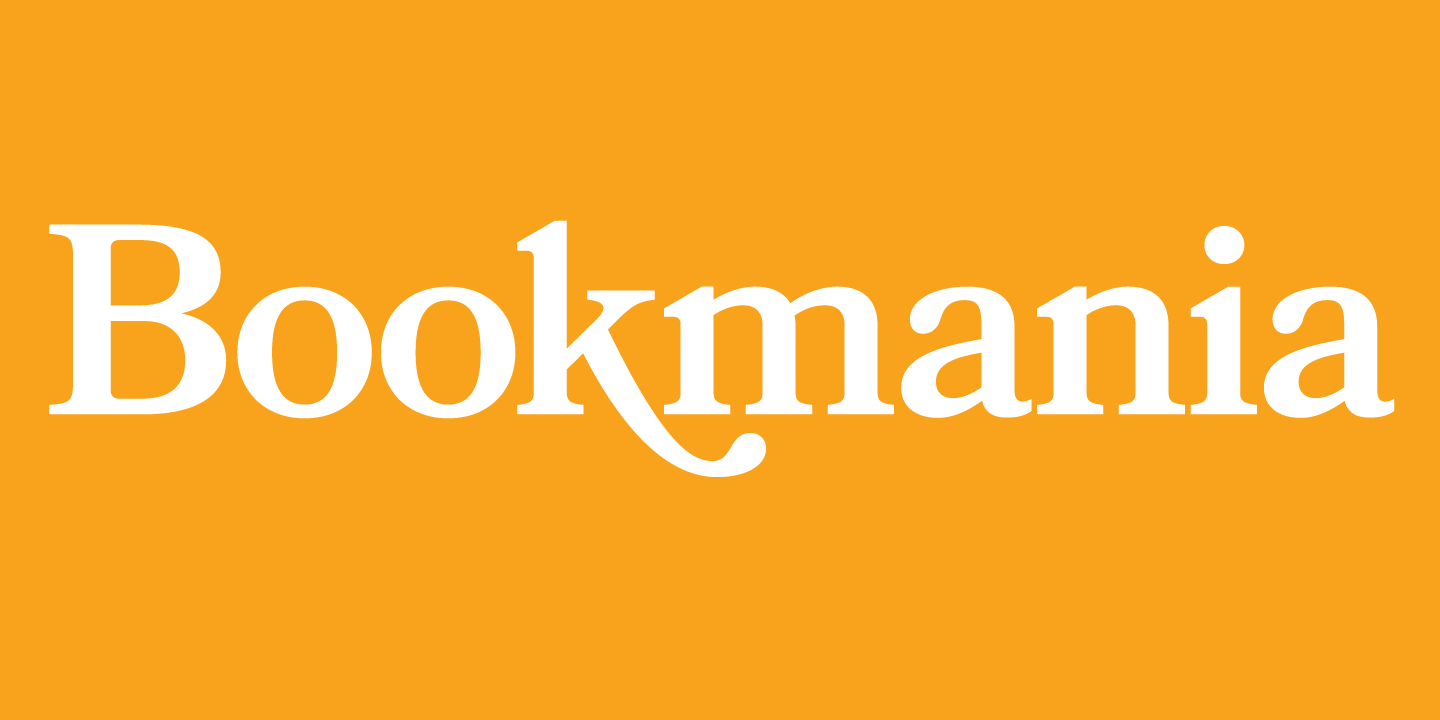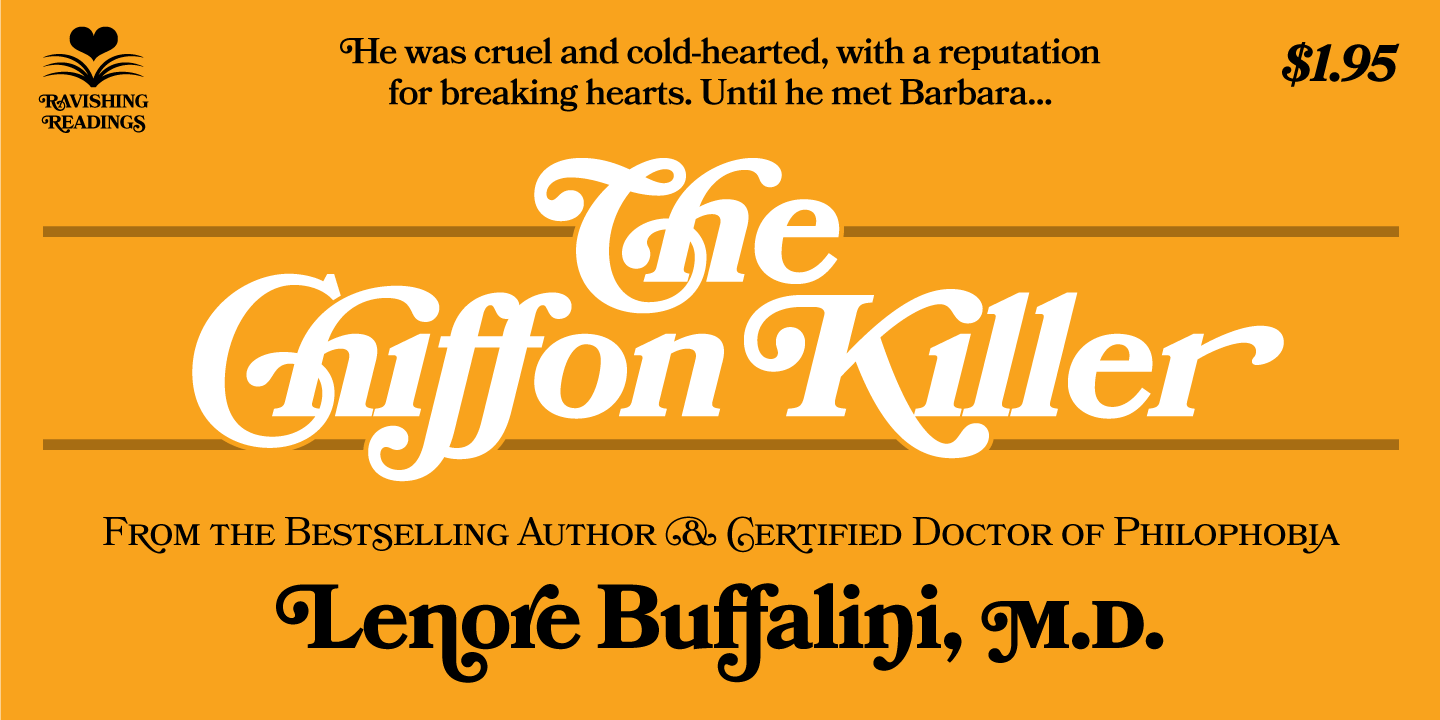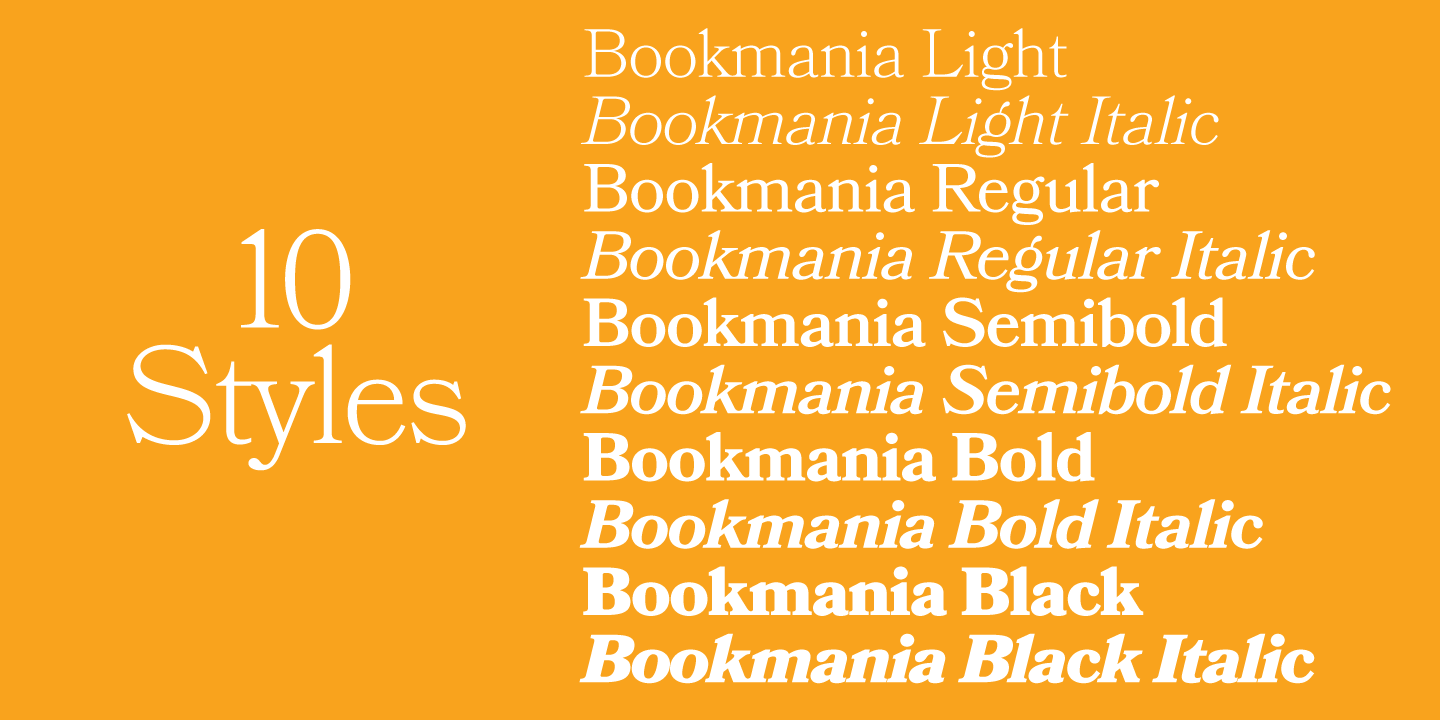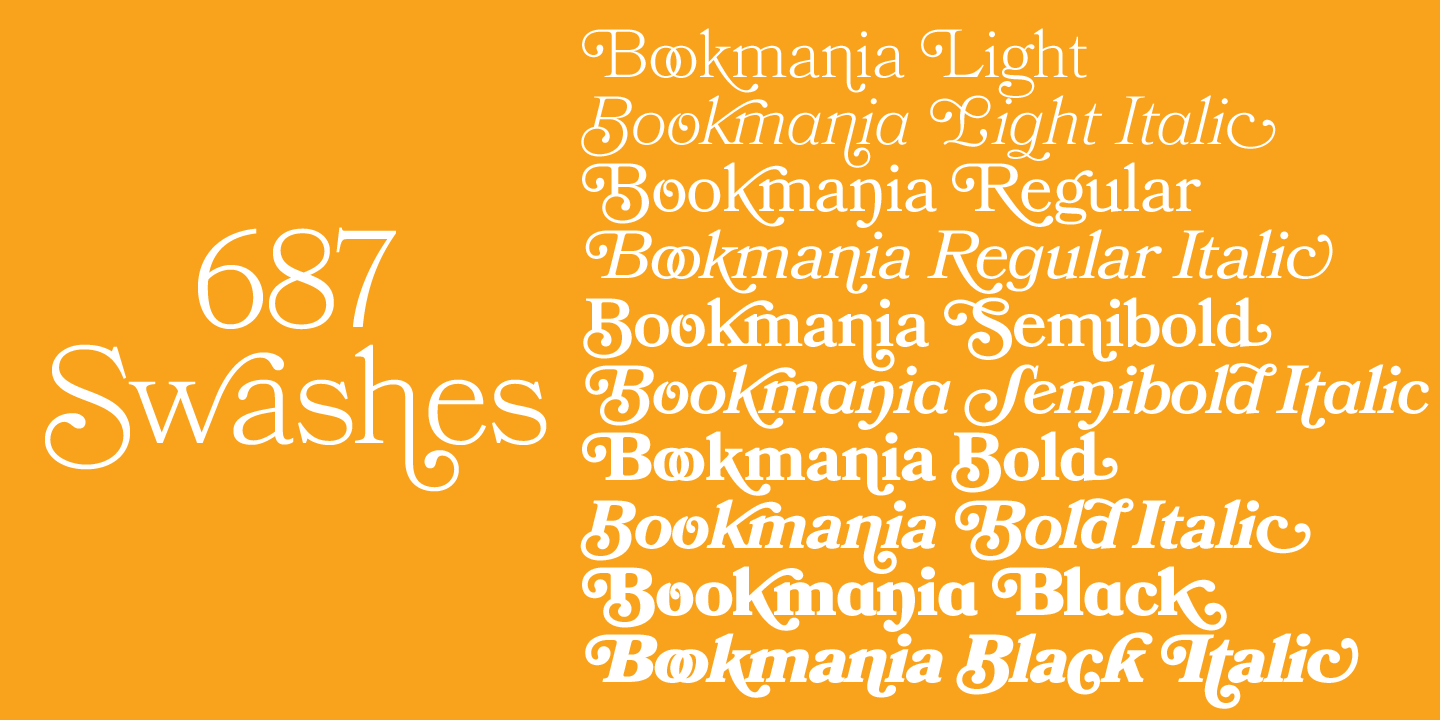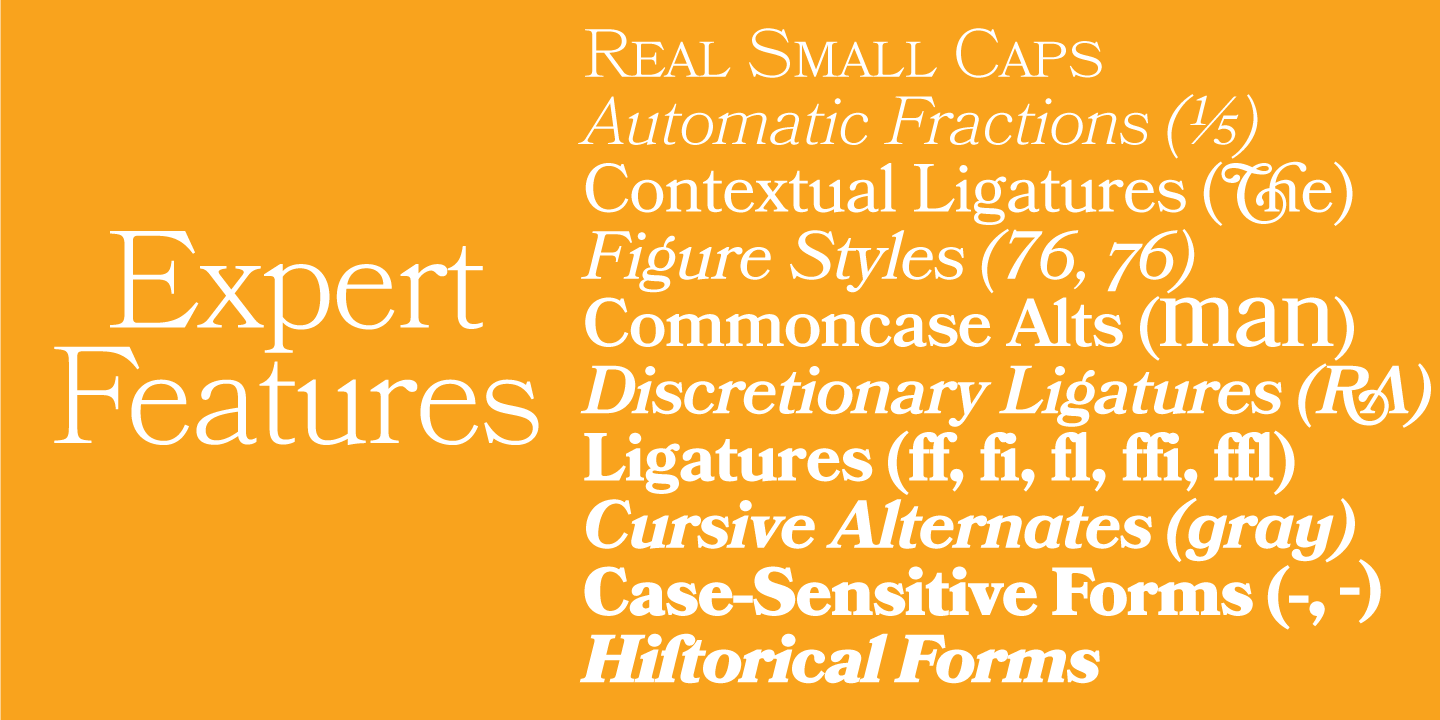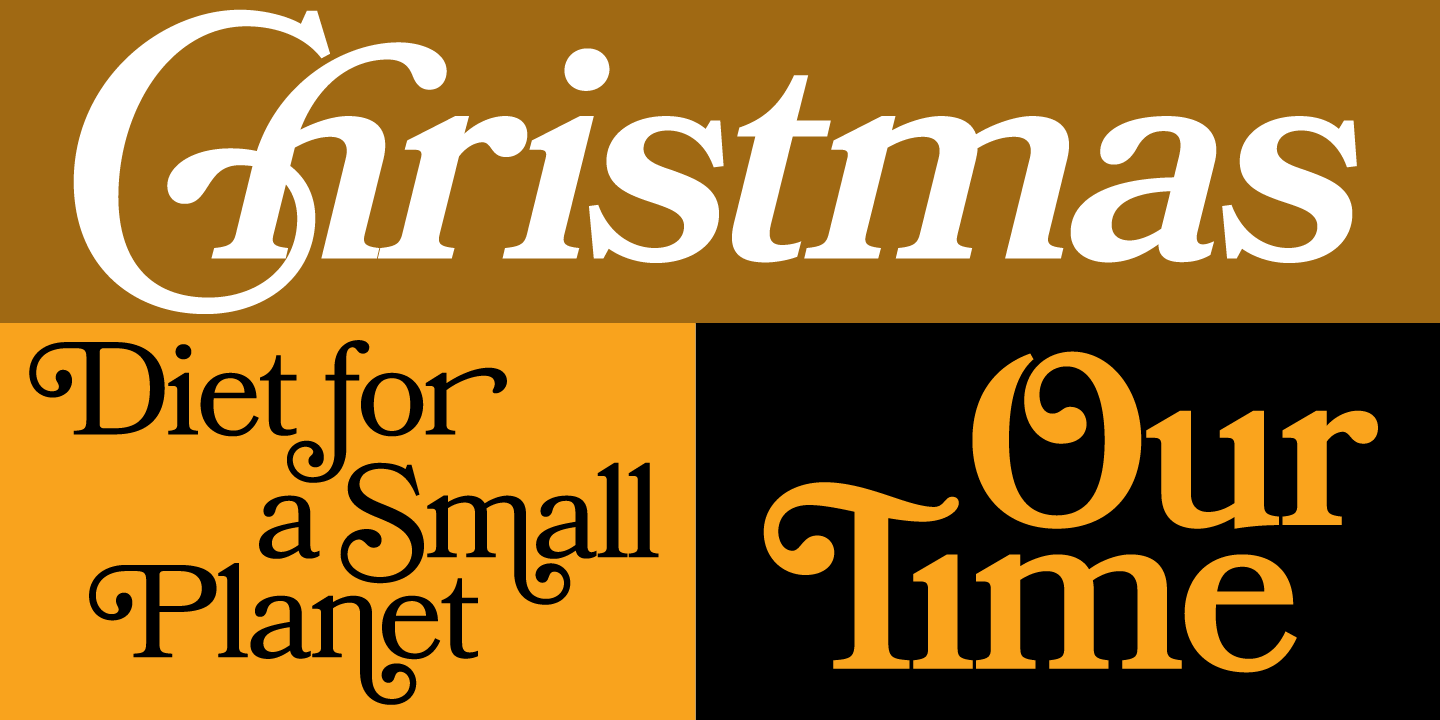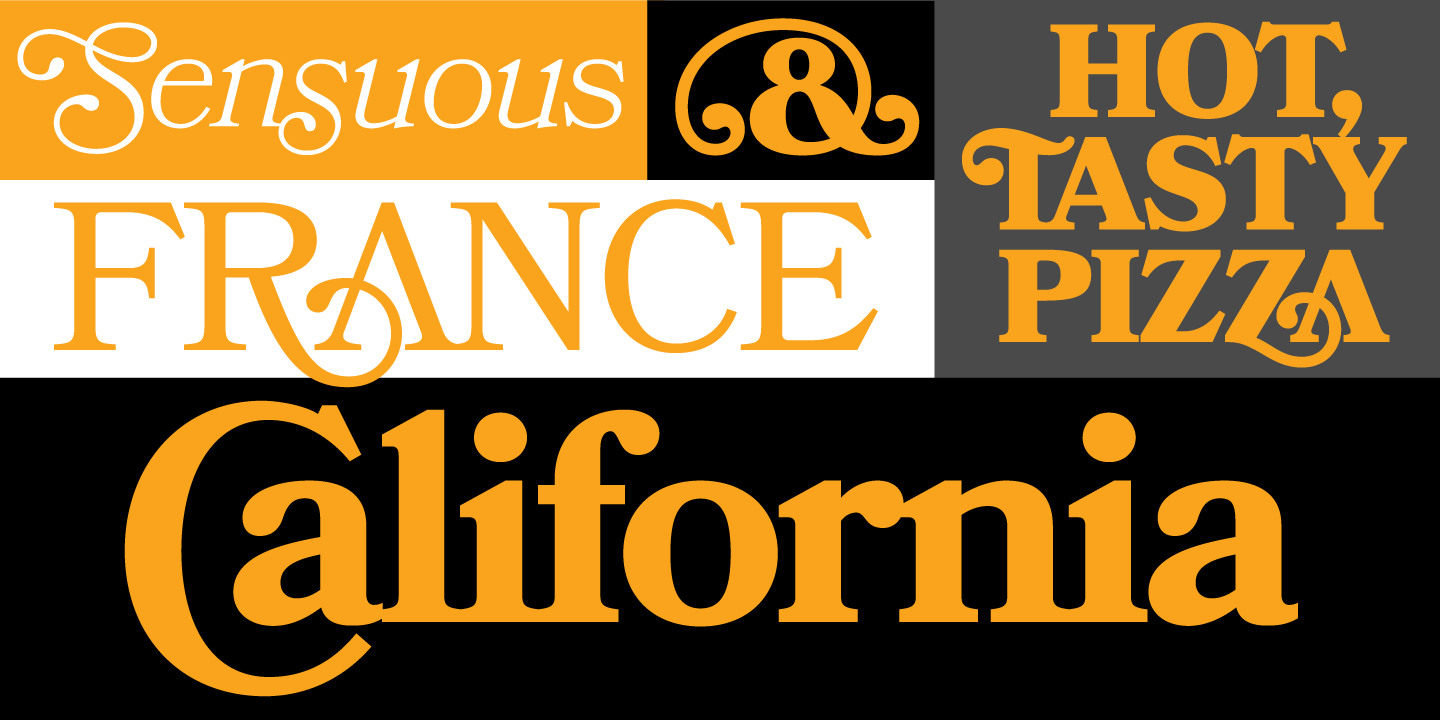
About the Bookmania Font
About Bookmania Font Family Bookmania (2011) combines the sturdy elegance of the original Bookman Oldstyle (1901) with the swashy exuberance of the Bookmans of the 1960s, With 687 swash characters, more than any previous Bookman, the possibilities are endless, The broad range of weights make it great for display use, but it also works well for text
Unlike some Bookman revivals, it retains the original classic sloped roman for the italic, Bookmania includes all the features you would expect in a modern digital typeface, Feature Summary:5 weights: Light, Regular, Semibold, Bold, and BlackMatching italics for all weightsMatching small caps for all weights*Over 687 swash characters*35 optional ligatures*Lining and old style figures (both proportional and tabular)*Full “f” ligature set*Alternate characters*Automatic fractions*Automatic ordinals*Extended language support (Unicode support required), including all the swash and alternate charactersImportant: Features of Bookmania marked with an asterisk (*) require OpenType advanced typography support in order to work (swashes, especially)